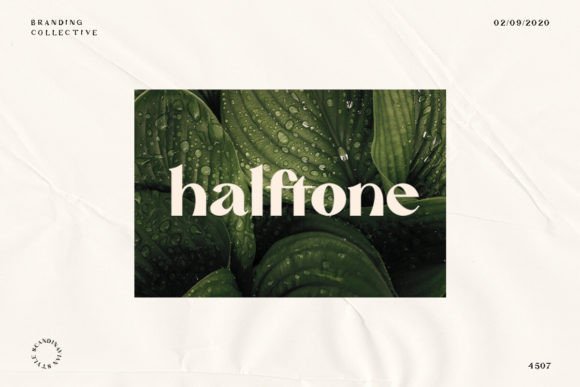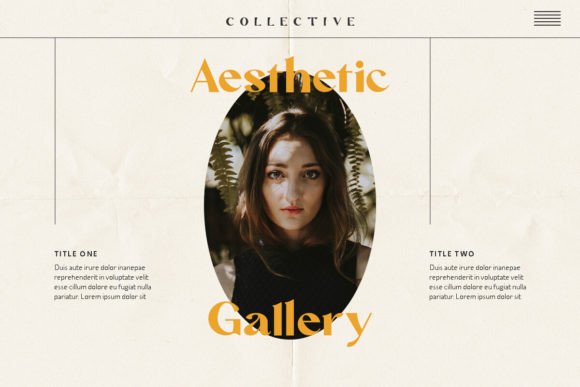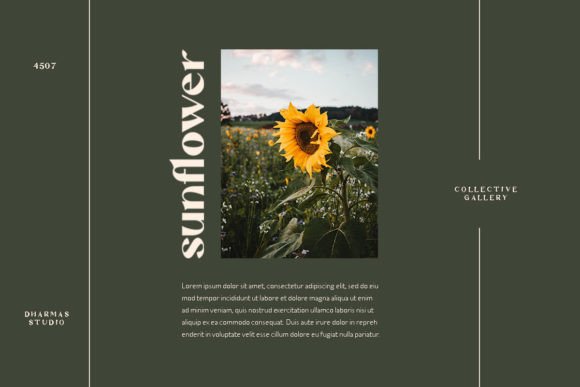
Introduction to Mattire Font
Mattire is a stylish font that is both classic and minimal.
A bold, high contrast font that is perfect for header magazine, web, feminine logo marks & editorial design It’s a mix between a classic serif and a futuristic sans serif.